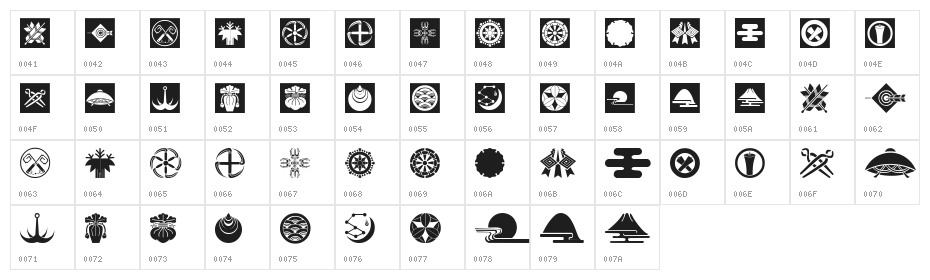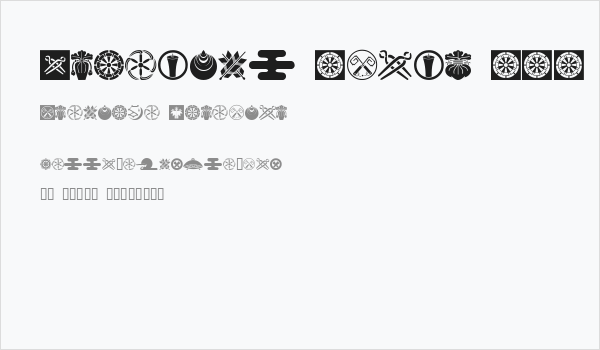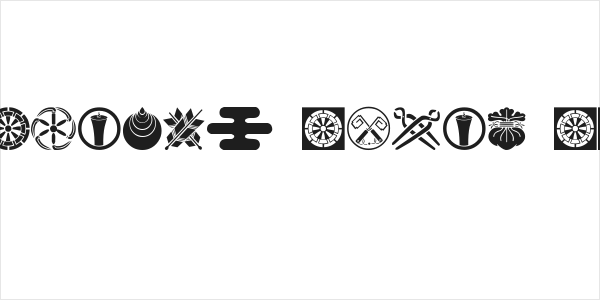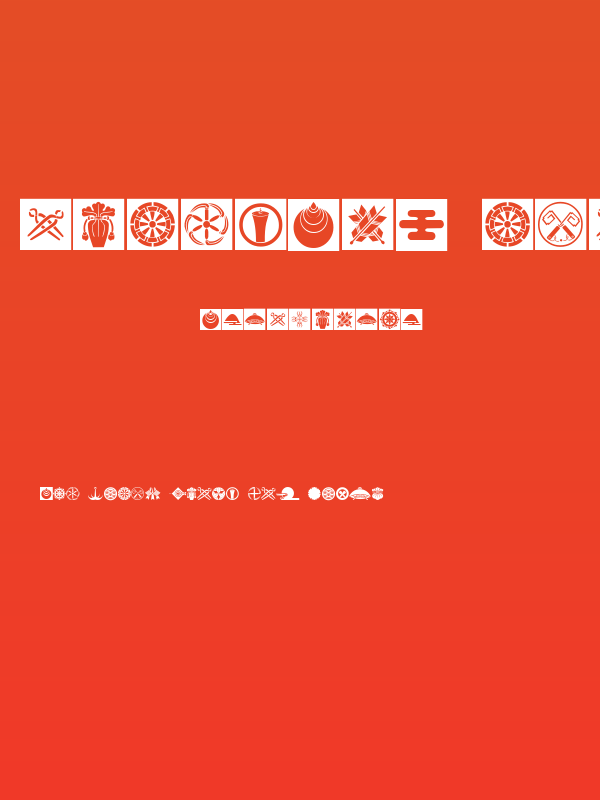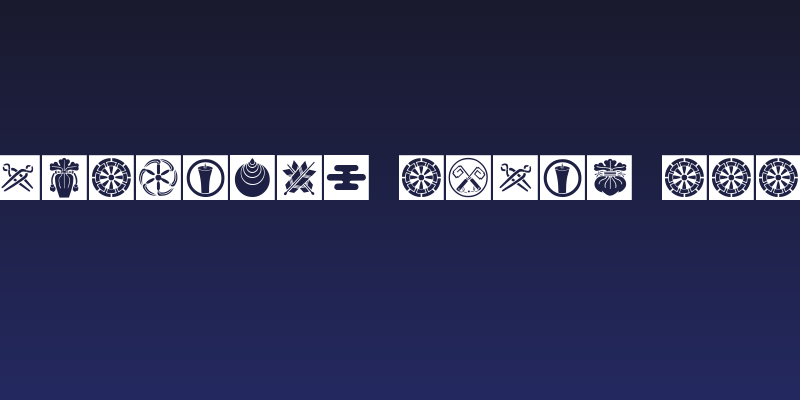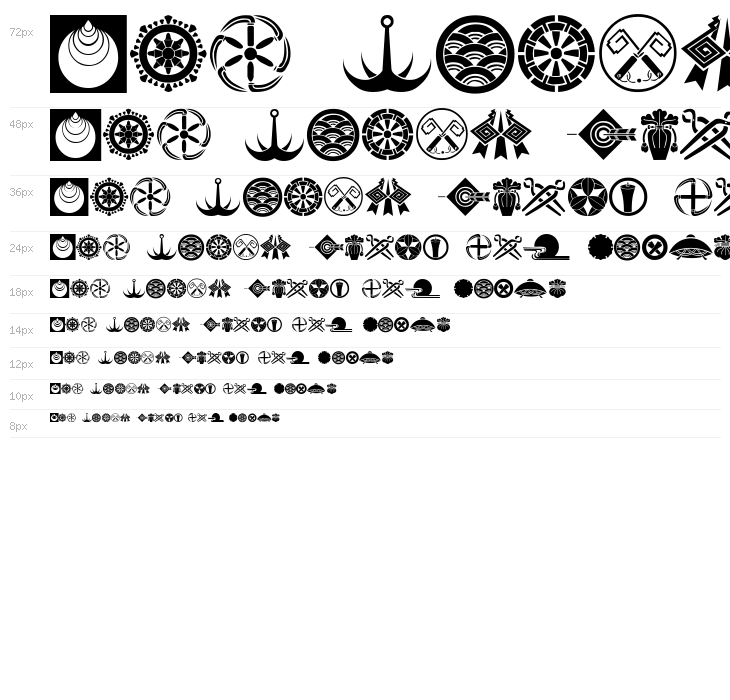
Oriental Icons III Font
Oriental Icons III Description
A decorative icon set featuring stylized, geometric, and symmetrical motifs inspired by East Asian art, including nature, abstract shapes, and traditional symbols, all presented in bold black and white within square frames.
| Overall Style | Decorative, Geometric, Cultural |
| Use Case | Icons, Logos, Decorative elements, Thematic graphics |
| Proposed Projects | Branding, packaging, posters, digital stickers, cultural event materials, decorative borders. |